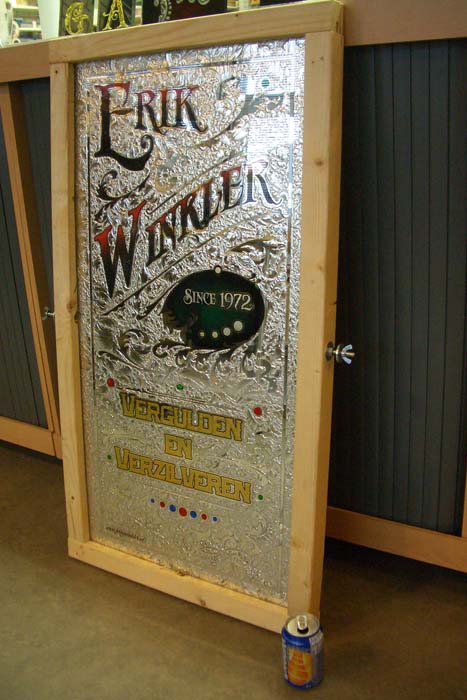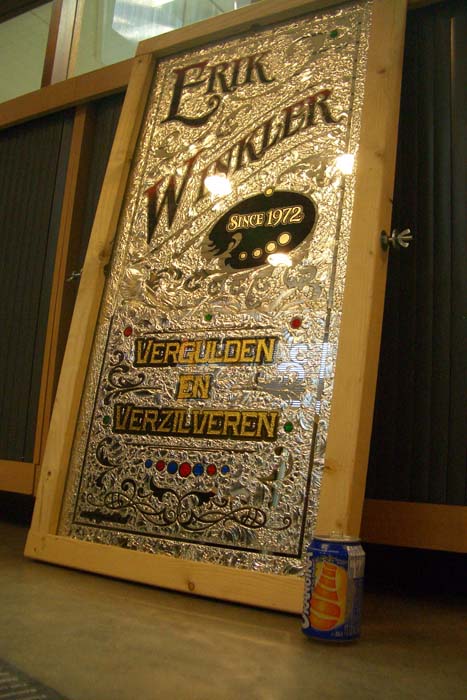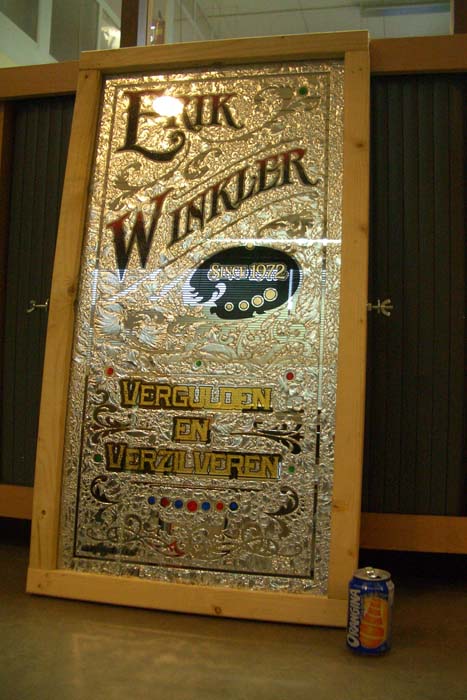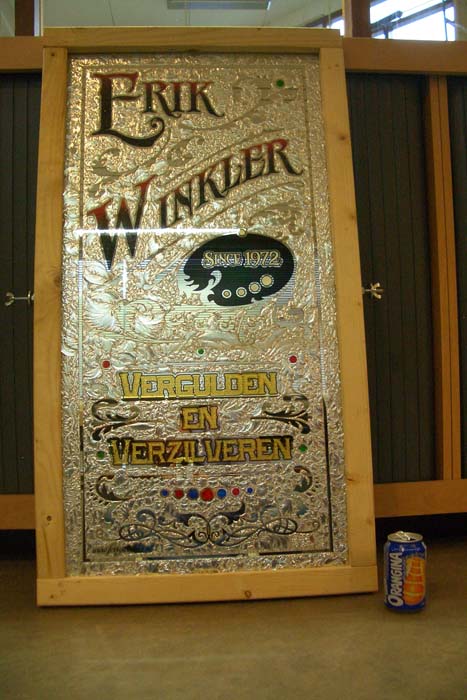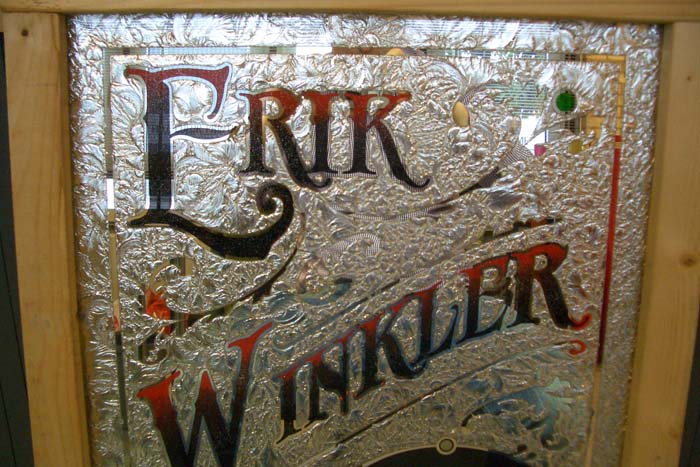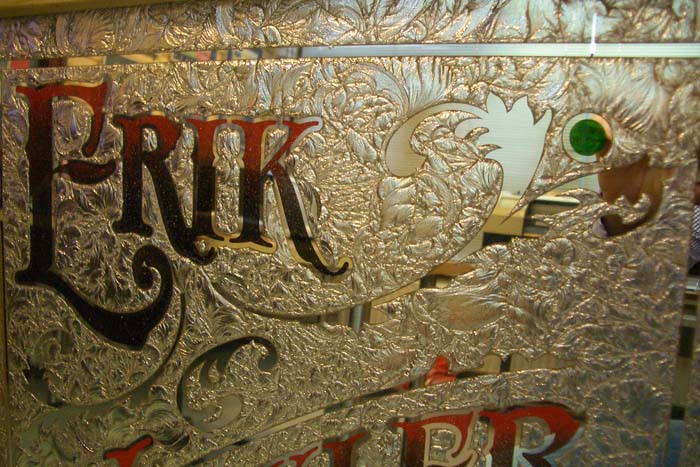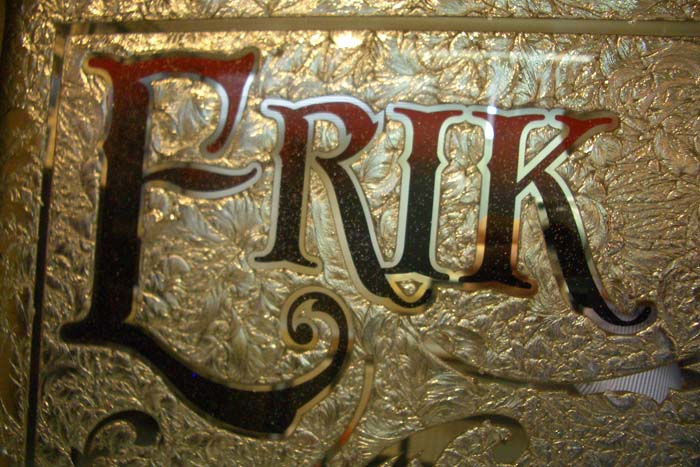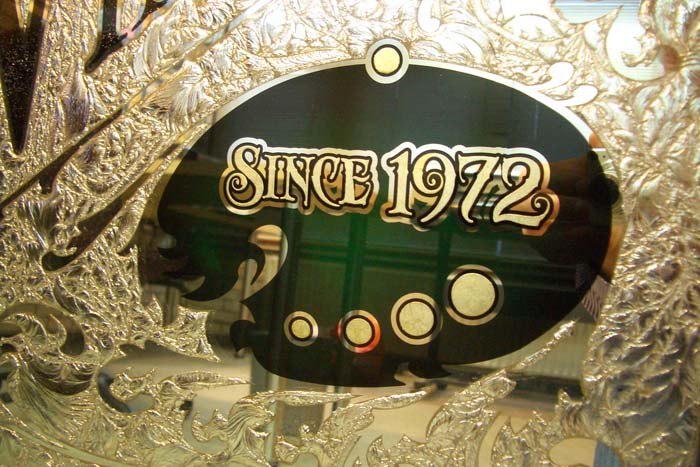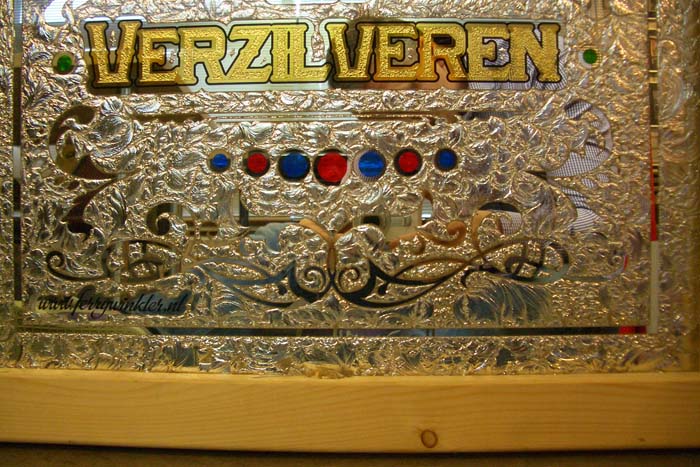
Another test piece
Hello,
Here is an other testpiece I made.
Hope you like it.
Still in the learning phase ;-)
And some more photo's:
And the last detail photo's:
Glass work is coming right along.
Looks like you've got chipping and silvering well in hand.
One suggestion...on your lower block of text, whatever it says,
I'd avoid having the bright lines of the letters intersect. Be okay
for the black outline to intersect, but the letters would stand out
a bit better if the bright lines didn't. That's just me, that's me.
Nice job! On to the next one. Can't wait to see that 10 foot by 4 foot one.
Aho!
Beautiful!
Does it say "gilding and silvering"?
Is the silver done chemically or leaf?
What did you use for your stipple on the gold?
Larry, i do not think I completely understand you.
The gold stippling is outlined with a bright line.
The glue chipping is outlined with a bright line.
My last experiment showed that the border between gold and silver needs a good nice and crisp black outline.
What do you suggest excactly?
David,
Yes it does say gilding and silvering in Dutch :wink:
It is chemiclly silvered.
The stippling is done with Mica etching.
Pretty fancy for a "test piece", Erik. My test pieces are in some dusty box in a back room, or in the dumpster.
That test piece will be needing a frame, and a nice spot on the wall!
I was just thinking you'd have better letter definision if the gold bright line around the textured letter centers,
didn't run together. Maybe that's just me. It would be okay, however, if the black outlines touched.
Not all fonts lend themselves to doing a technique as a "letter center".
Basically, when creating a letter center, the existing outline of the font
needs to be inset to define the bright line, and to not alter the font itself.
But keep in mind (as I was taught), the thinnest area of the letter center
should always be thicker than the bright line. I don't typically like outlining
a font to create a bright line, because it alters the actual font and
sometimes looks "baloonish". Sometimes you can get away with a slight
outline and inset together, to achieve a bright line that's thinner than
any portion of the center. :|
Keep up the good work.
...Hey, I know, how about a blended letter shade on the next test piece!
Thanks for the advise.
I will try certainly try to look for a better solution next time.
First thing I will do is make the outline thinner.
I thought I needed the barrier because of possible mis-chipping, but it can be reduced by 1/3.
Besides that I can increase the spacing of the letters and try to place the letters over each other.
Blended shading is coming up specially for you!
Would you like that with another technique? I was thinking of adding a picture also...
Your "test" piece is very impressive. The chipping work is nice and true to the line work.
Did you use transparent enamel inks on those colored round accents?
Larry brought up a good point about choosing fonts that work well for extra decorating. Rick Glawson
pointed out the same observation on one of my first test pieces.
Keep on posting your work Erik.
Pat,
I indeed used transparent solvent based enamel inks.
I had a bit of a problem with the paint when I glued them afterwards with UV second glue (I think you call it cyanaat glue).
The paint was dissolving again and I quickly had to redo a few of them...
Running some tests would prove fairly quickly if it would work.
Another more instant method would be to use a heated rosin and beeswax mixture. As soon as the mixture cooled, the circle would be attached to the glass sign.
Kind of like a late 1800's "hot glue".
Ok thanks,
I think the waterbased paint would be the best solution.
But as for now I have all this new paint and will try to experiment with shellack, and your other ideas.
Erikieee